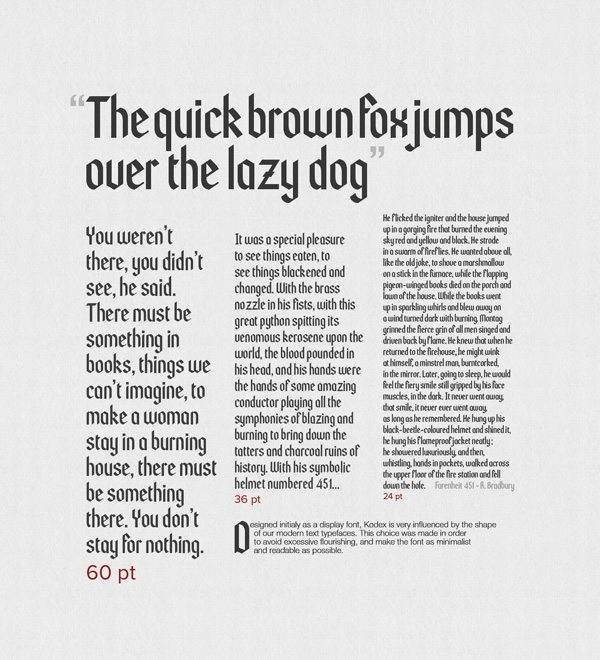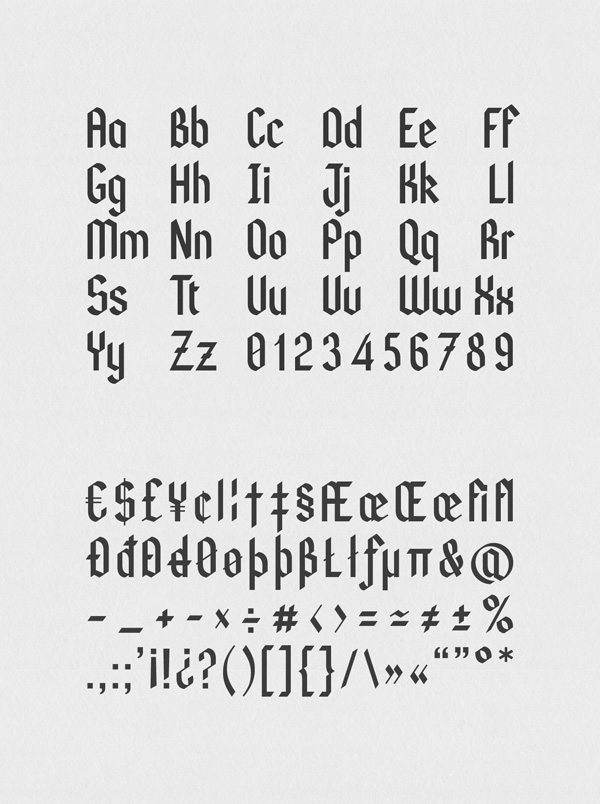
Kodex Font
It’s been a long time since I introduced you to a black typeface, and today is a good place to do it. You will appreciate it and give it to your collection of fonts. A versatile complementary policy. The font is combination of between old and new, tradition and contemporary styles. You can download it for free. Designed by Manu Script.